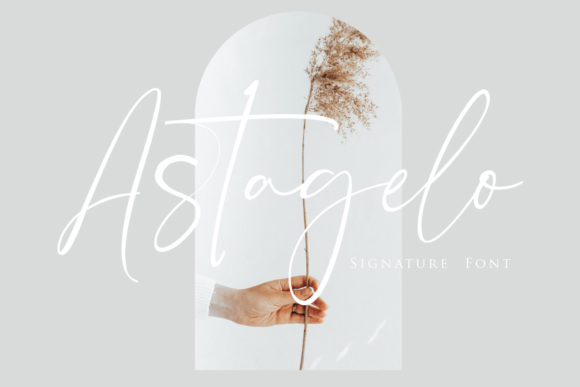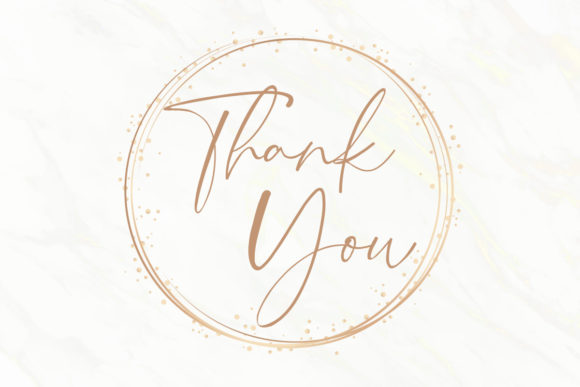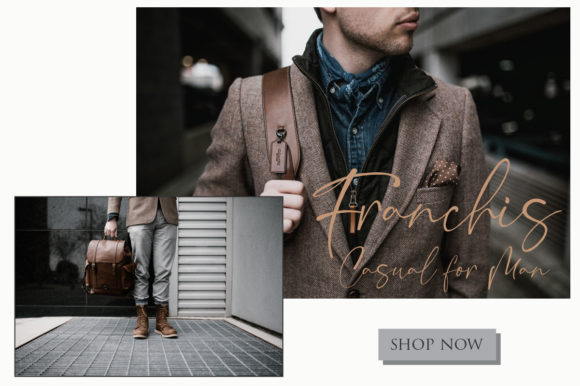
About Astagelo Font
Astagelo is a beautiful and refined script font. It has a classy, elegant and modern look that can be used for logos, branding, invitations, stationery, wedding designs, social media posts, and much more!